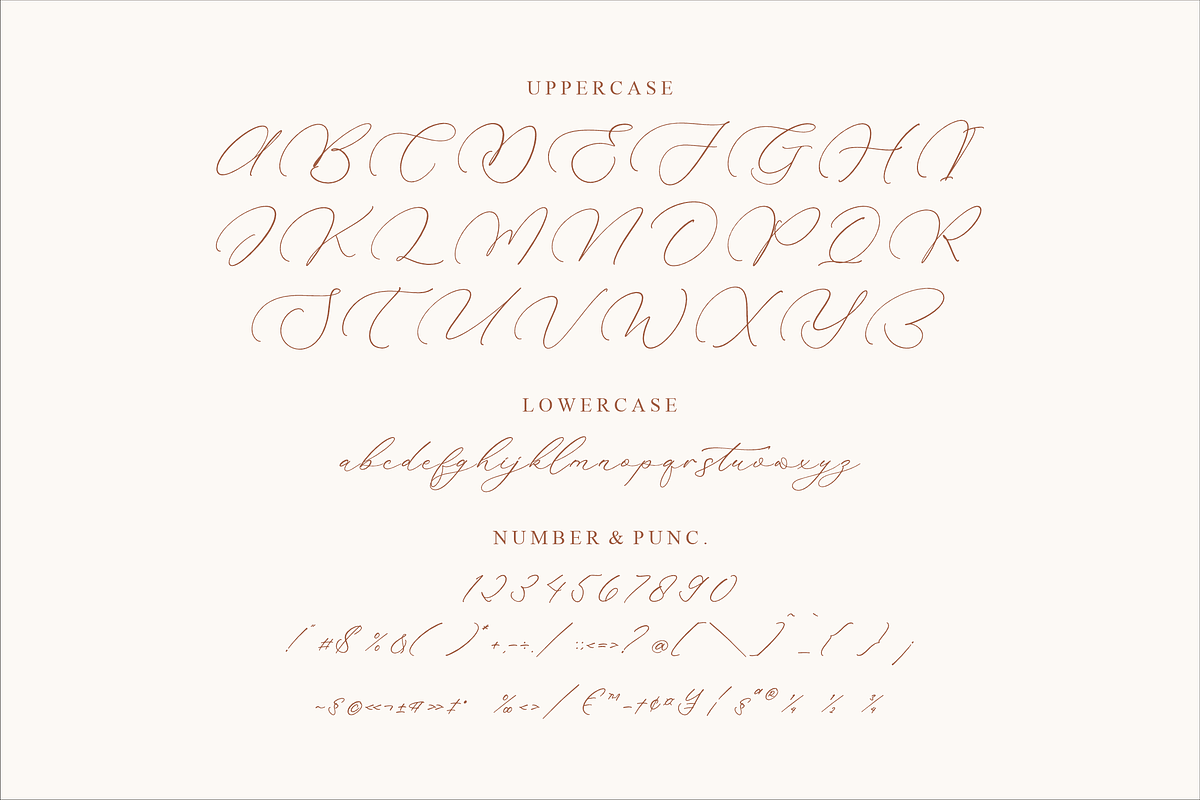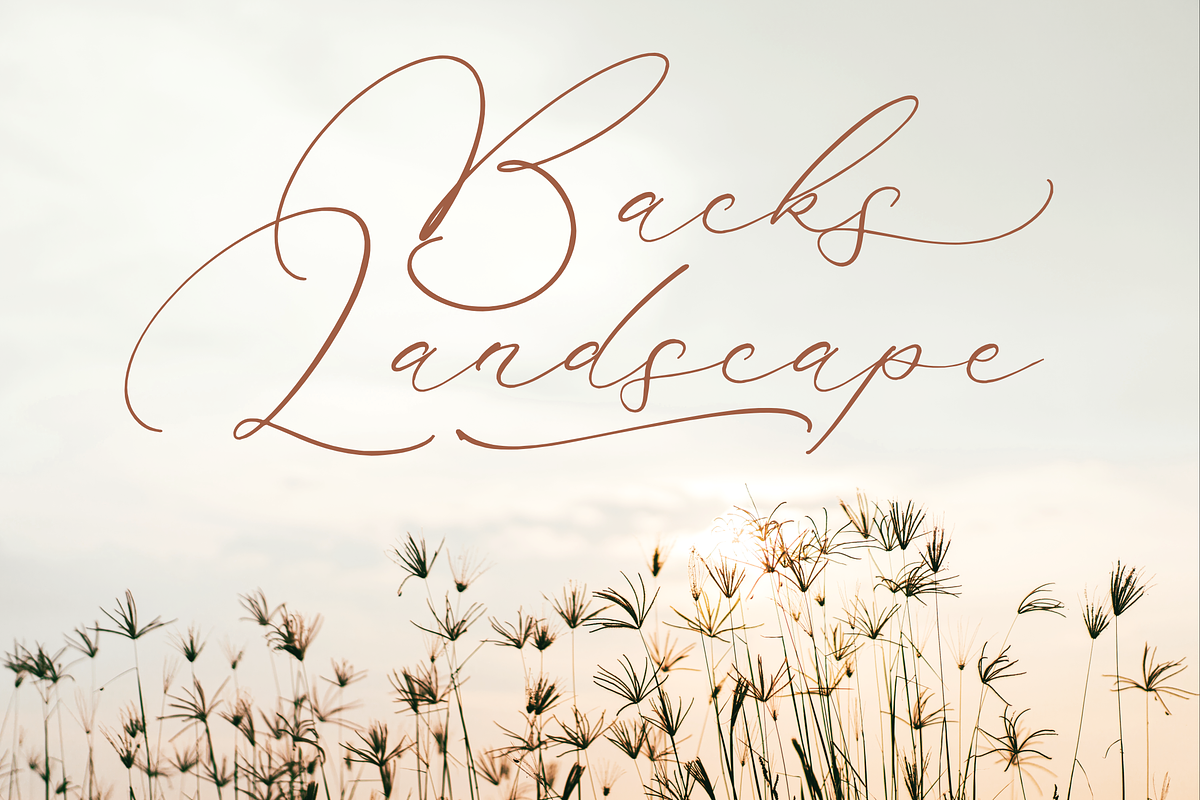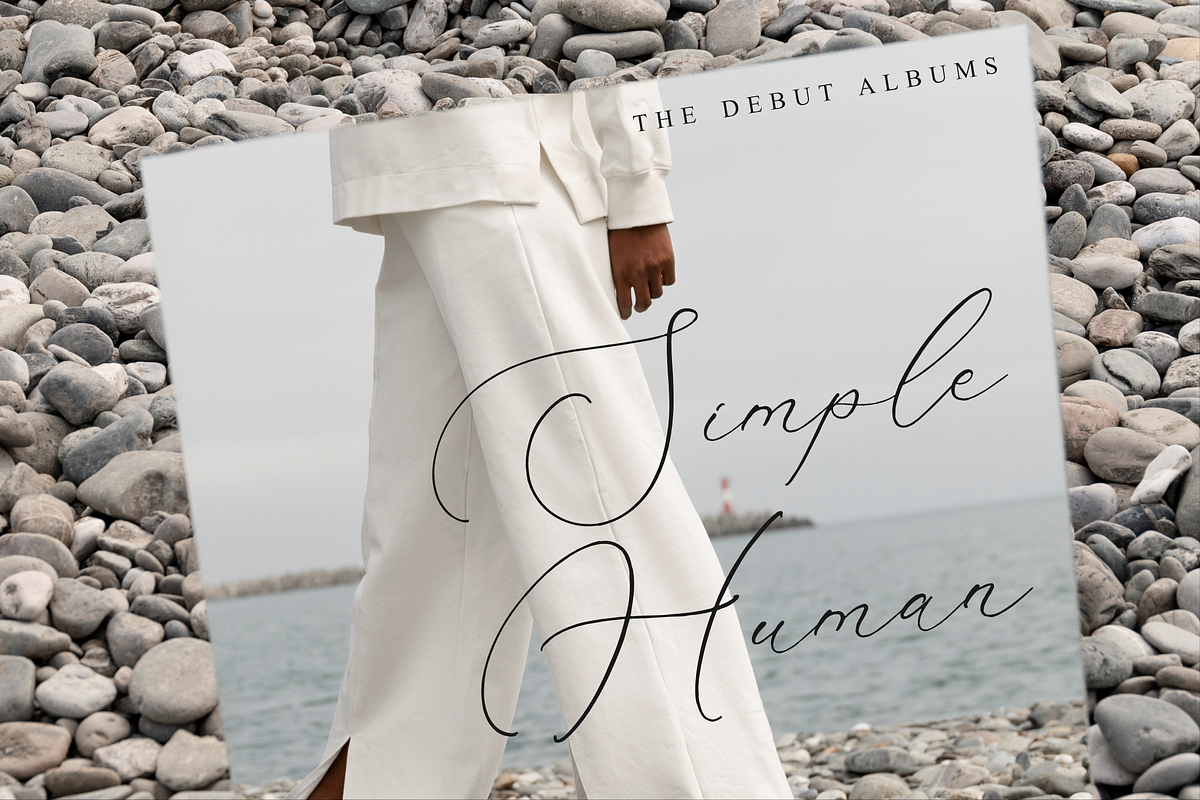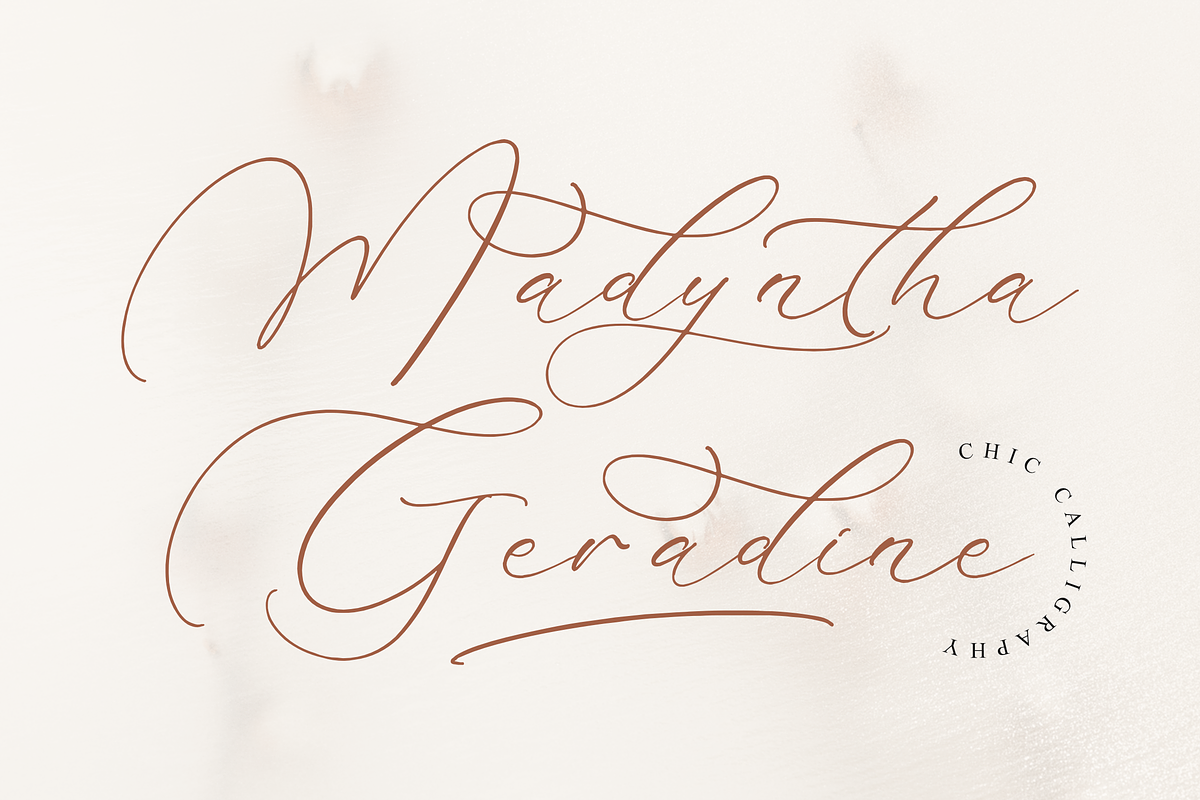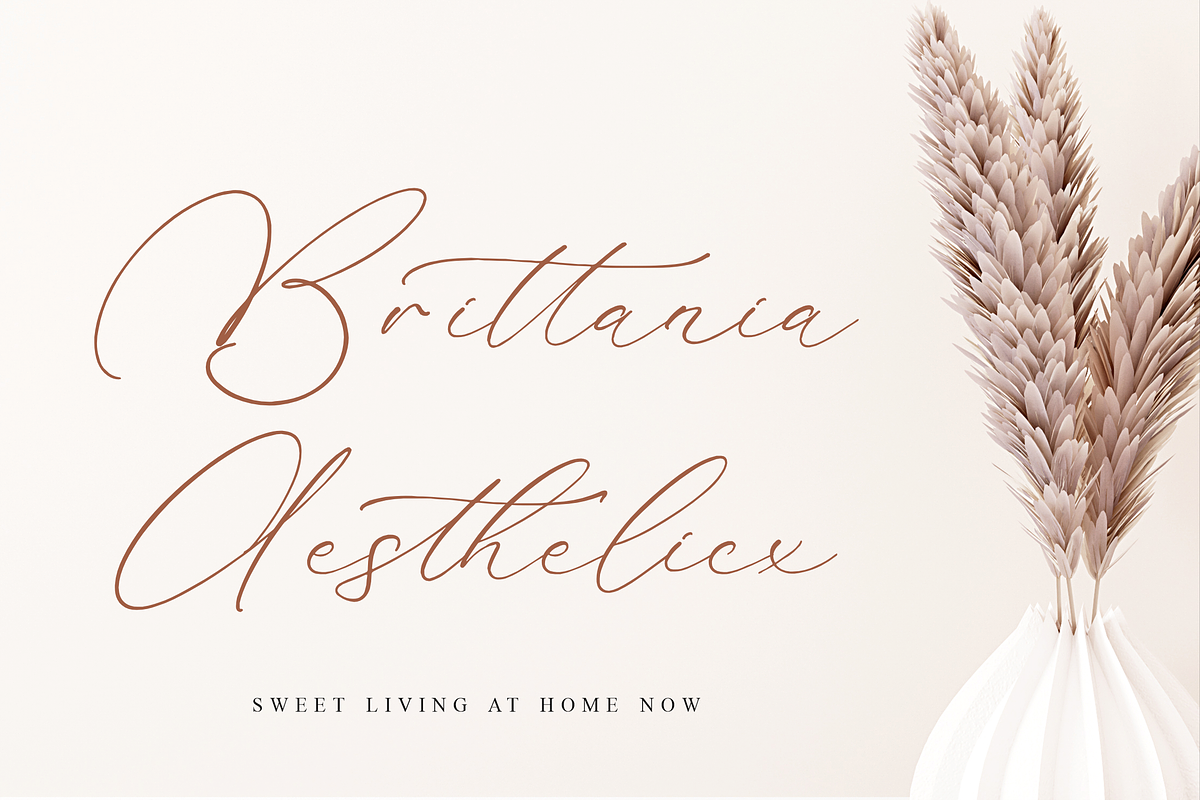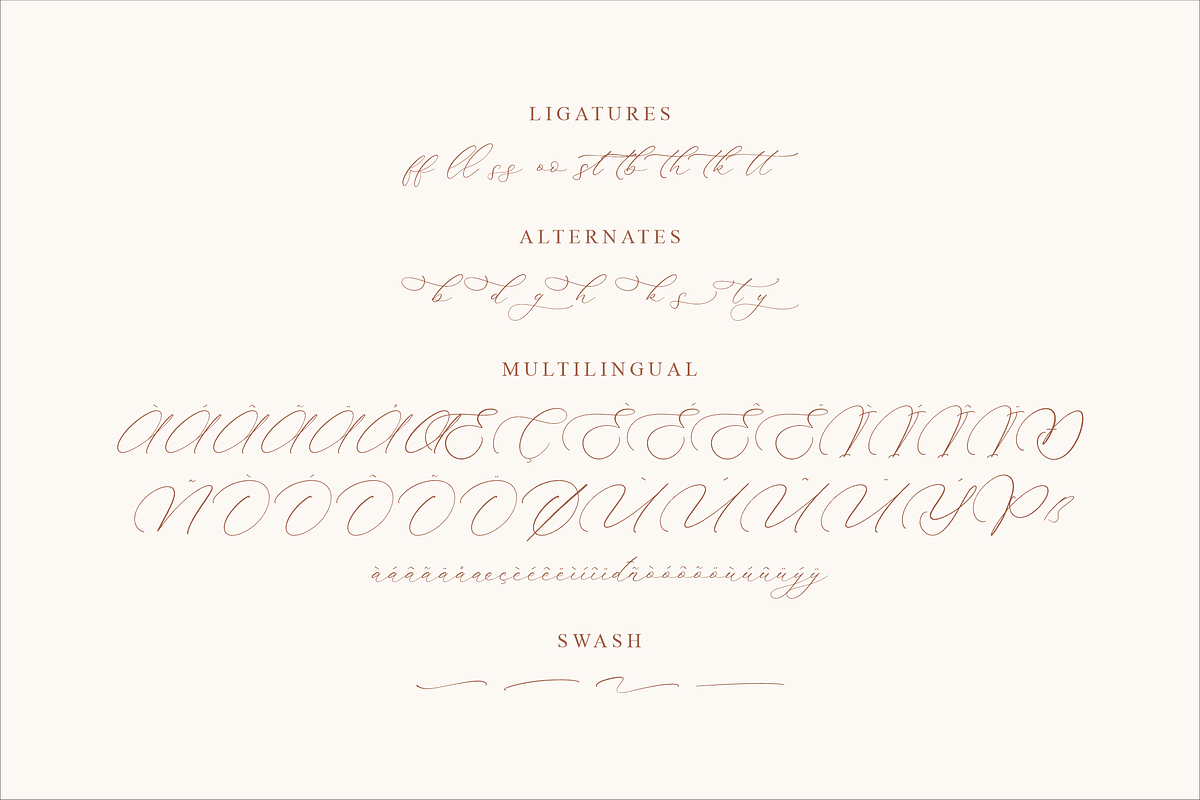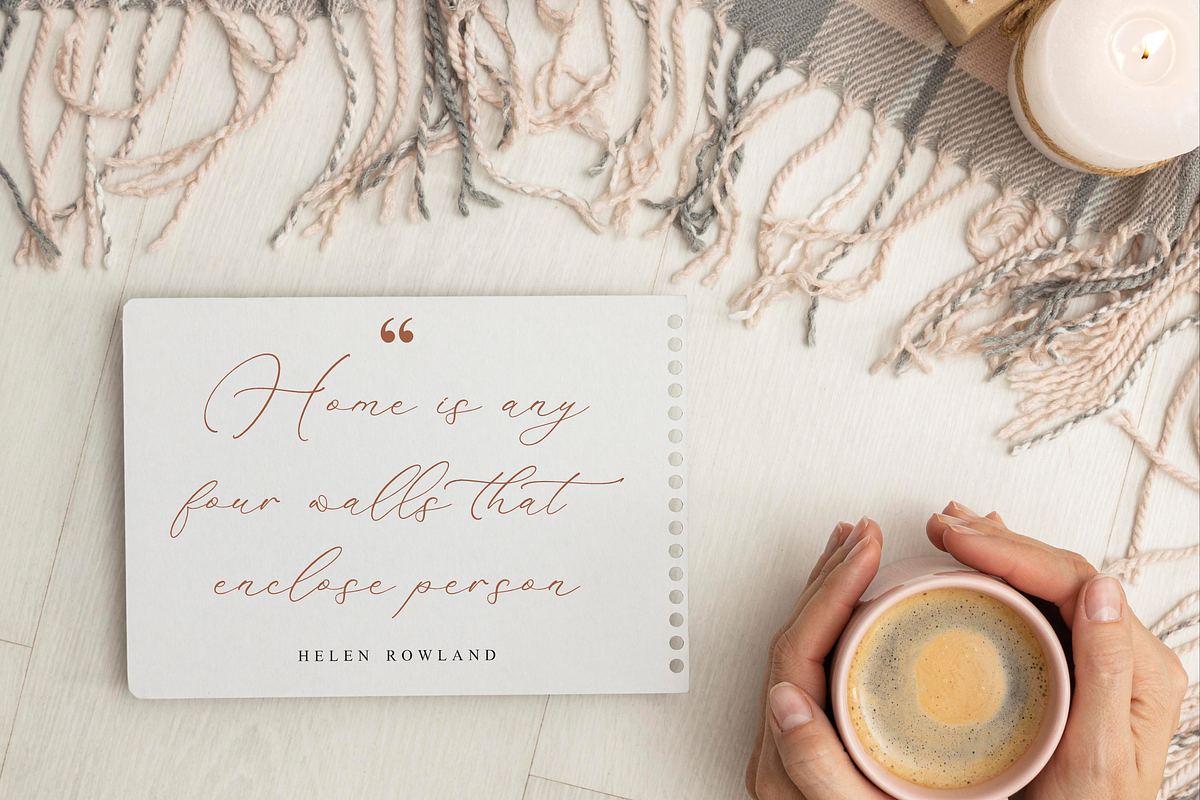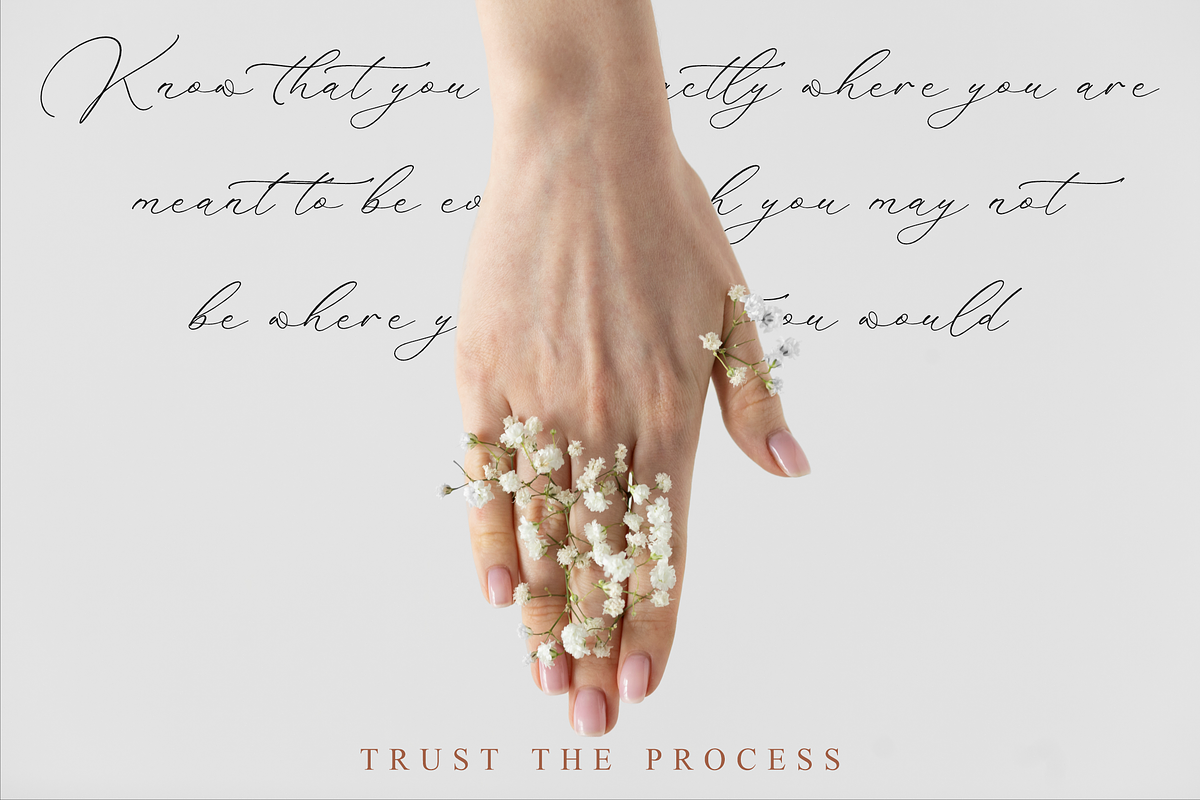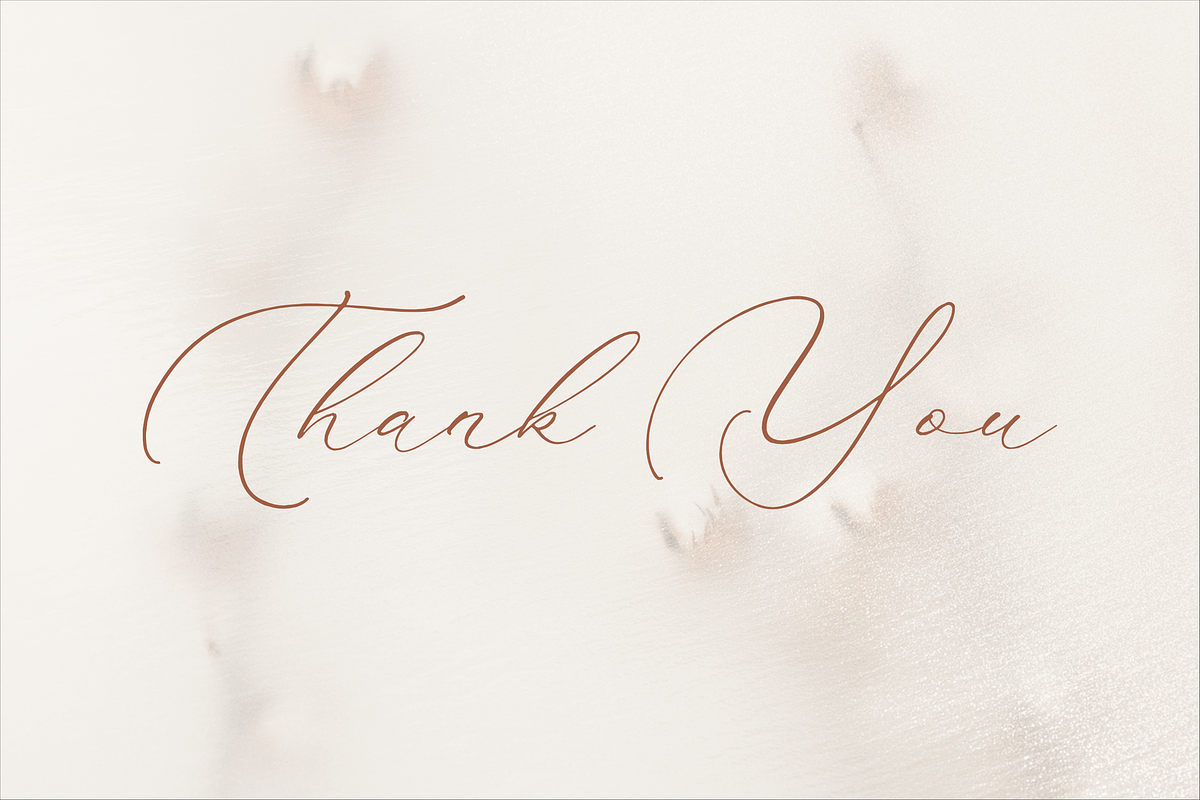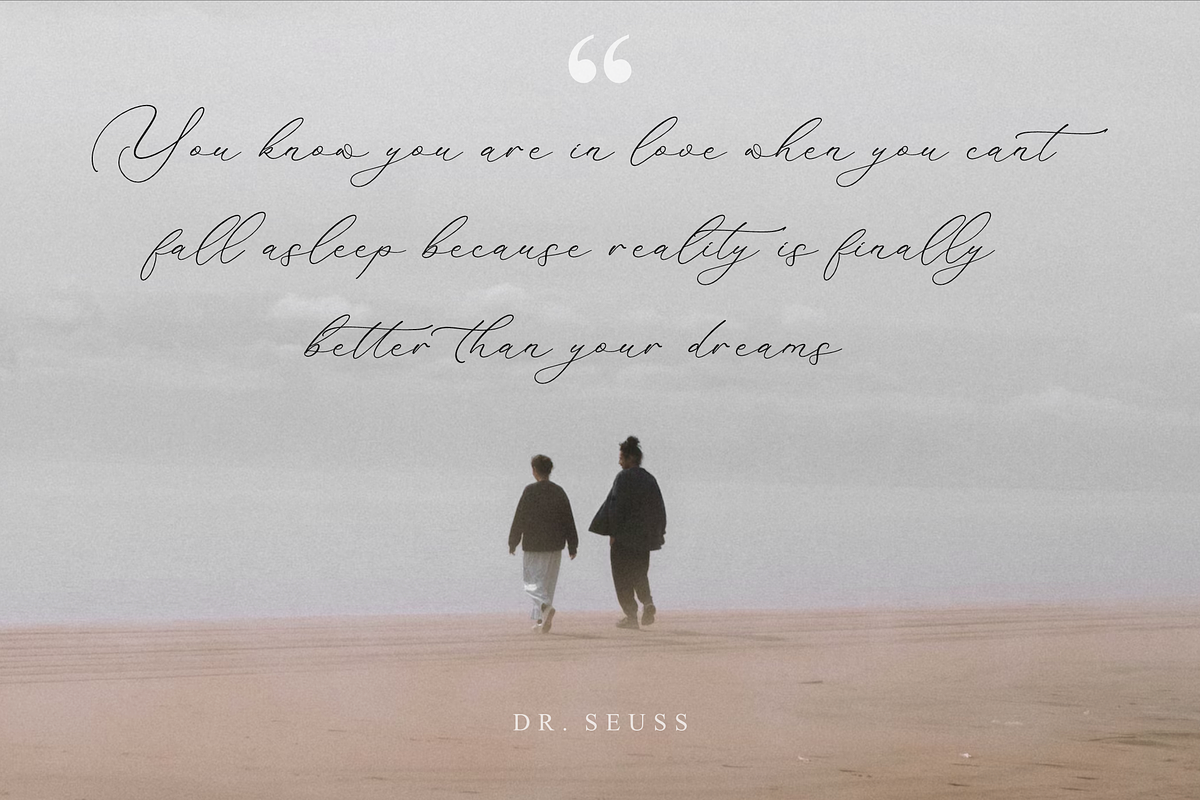
Madyntha Geradine Chic Calligraphy
Proudly present Madyntha Geradine - Chic Calligraphy , created by Storytype, A luxury script that has own unique style & modern look. This typeface is perfect for an elegant & luxury logo, book or movie title design, fashion brand, magazine, clothes, lettering, quotes, and so much more.